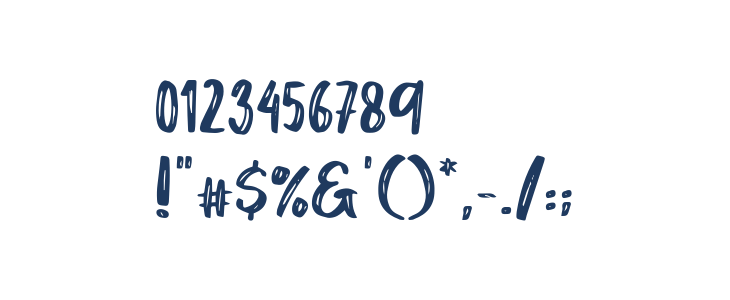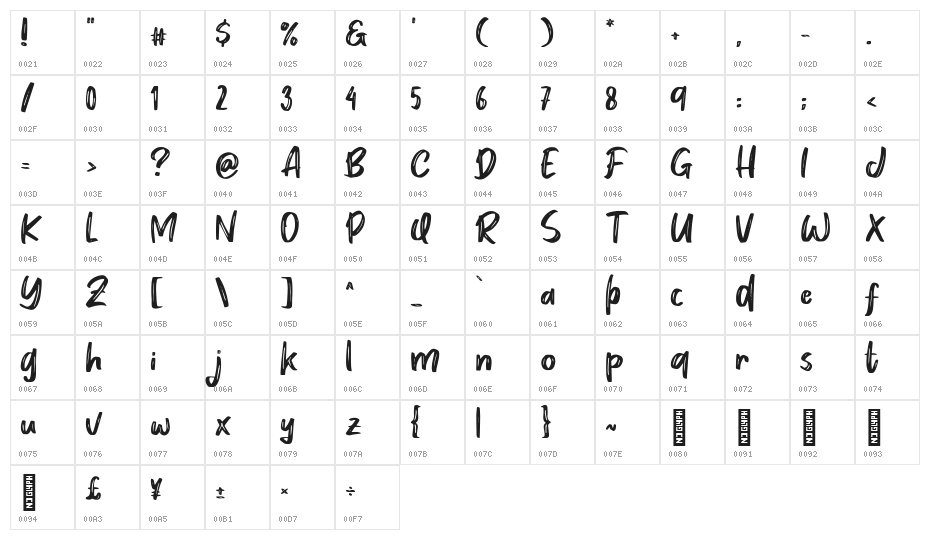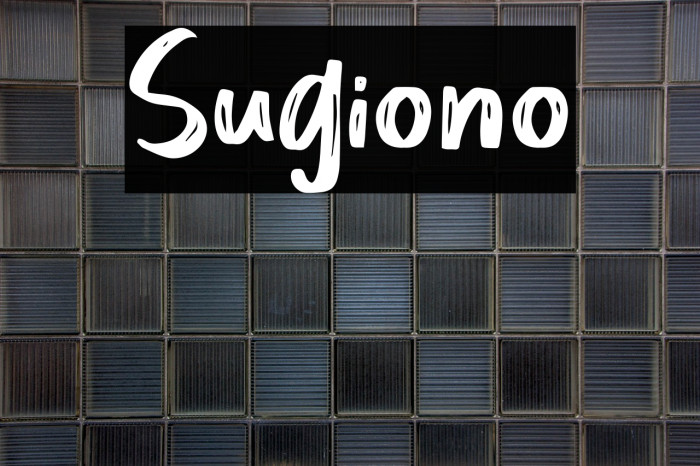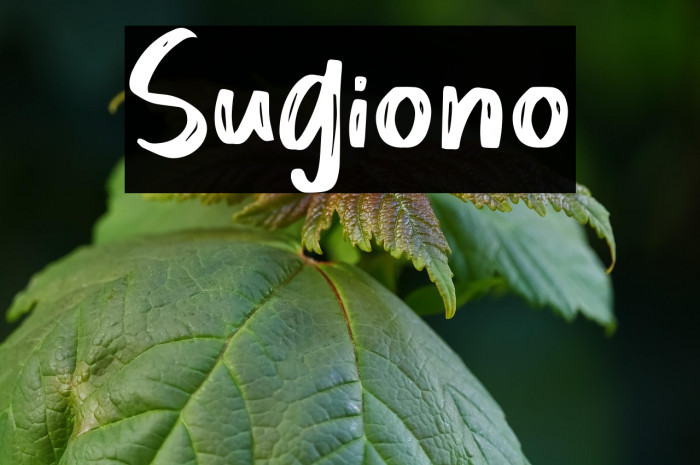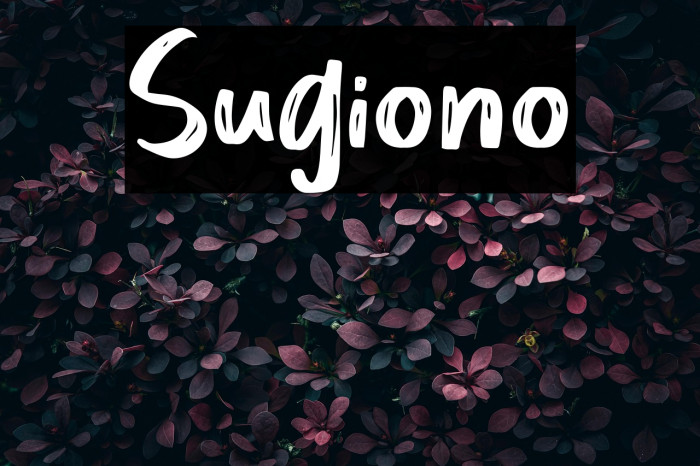
Sugiono Font
Sugiono Description
This font exhibits a bold, expressive style with a handwritten appearance. The letters are crafted with a brush-like texture, giving them a dynamic and energetic feel. The uppercase and lowercase characters maintain a consistent flow, with slightly irregular edges that enhance the casual, artistic vibe. Numbers and special characters follow the same aesthetic, ensuring uniformity across all glyphs. The font's playful nature makes it suitable for creative projects that require a personal touch.
| Proposed Projects | Ideal for greeting cards, posters, branding materials, and social media graphics where a personal and artistic touch is desired. |